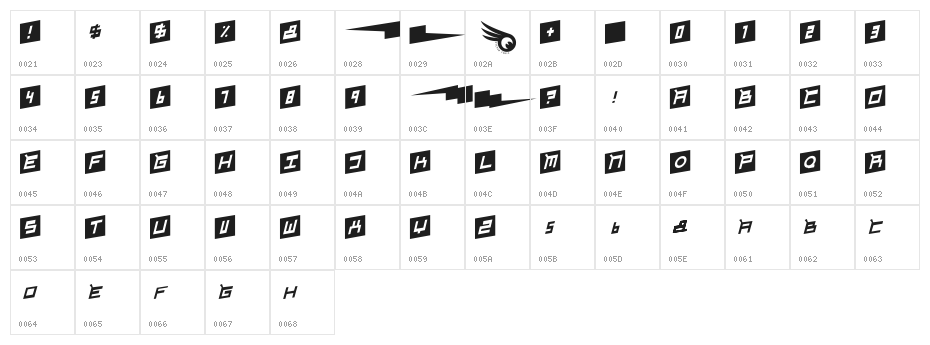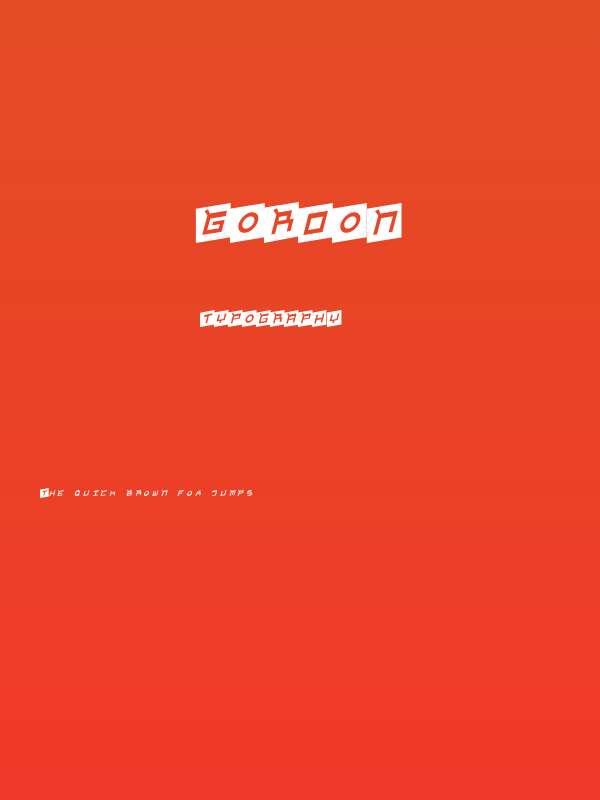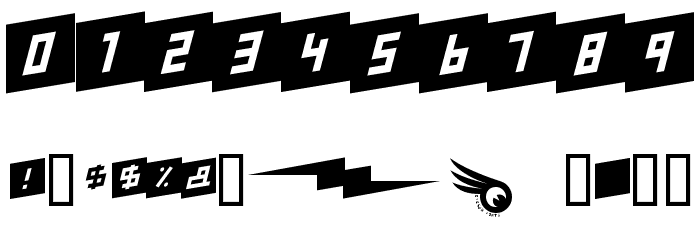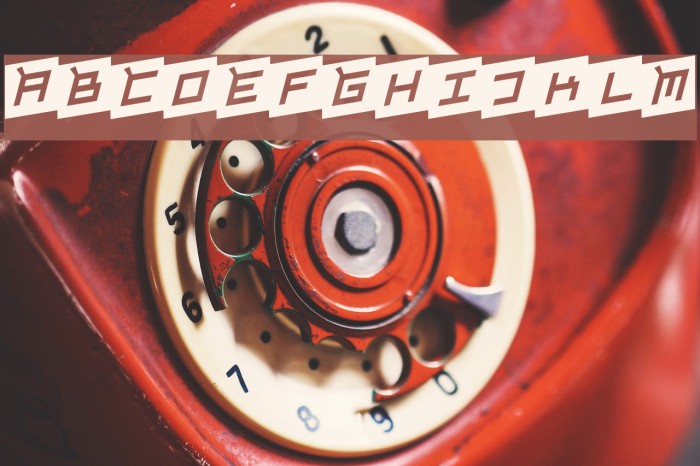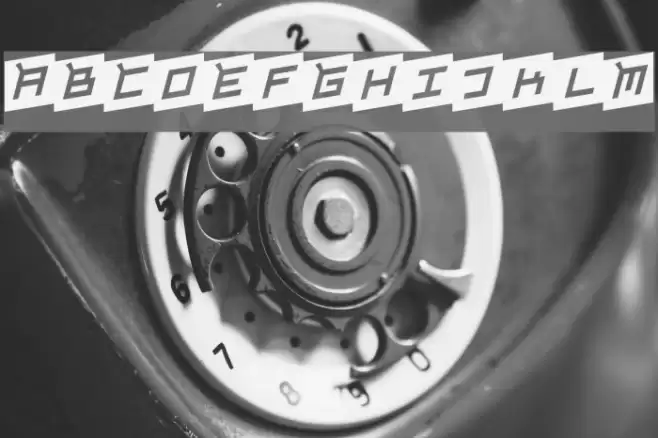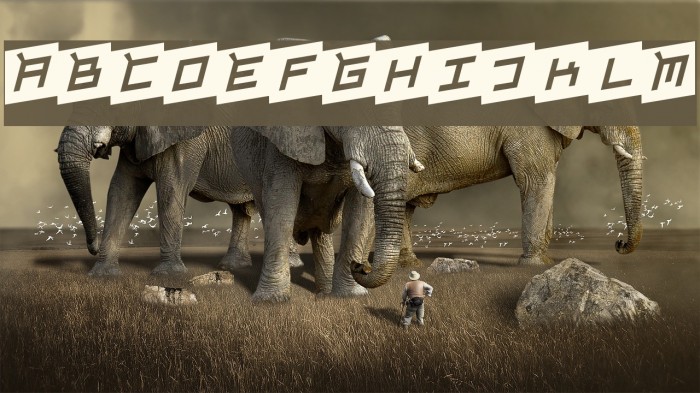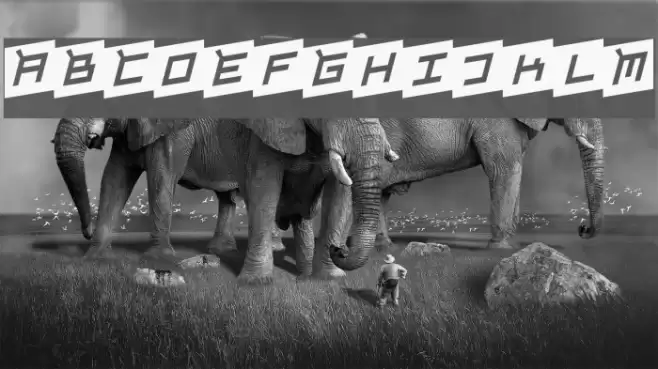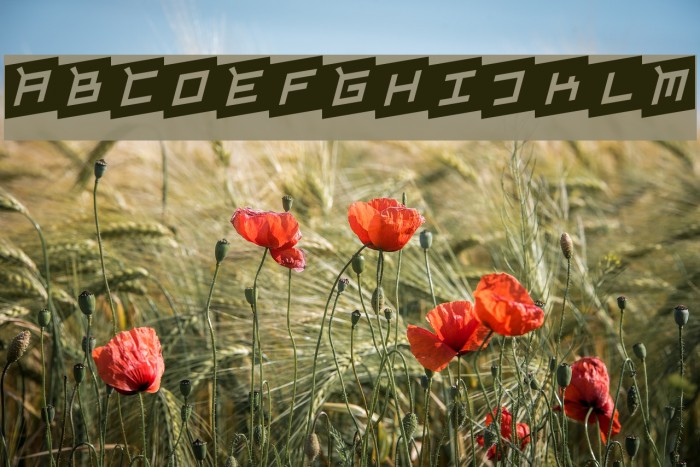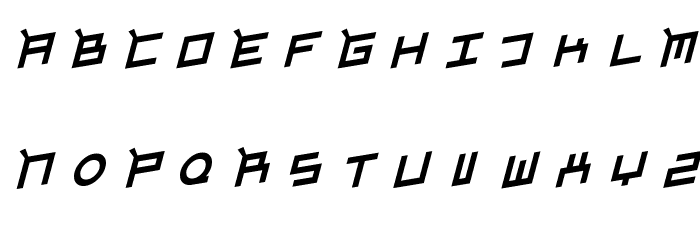
Gordon Font
This font features a bold and dynamic style with a distinct slant, giving it a sense of motion and energy. The uppercase and lowercase letters share a consistent angular design, characterized by sharp edges and a futuristic aesthetic. The numbers are equally bold, maintaining the same slanted and angular style. Special characters are designed with the same boldness, ensuring consistency across all elements. This font's unique design makes it stand out, suitable for projects that require a modern and edgy look.
| Proposed Projects | Ideal for sports branding, video game titles, and dynamic advertising campaigns. |